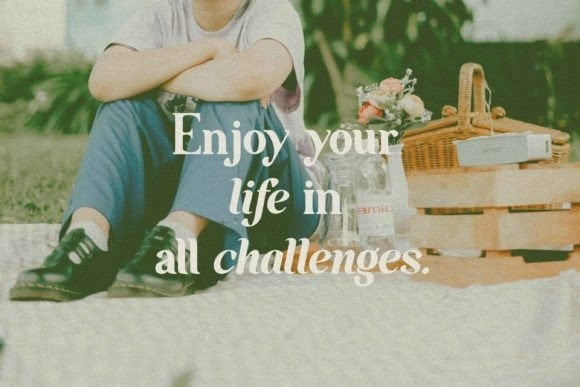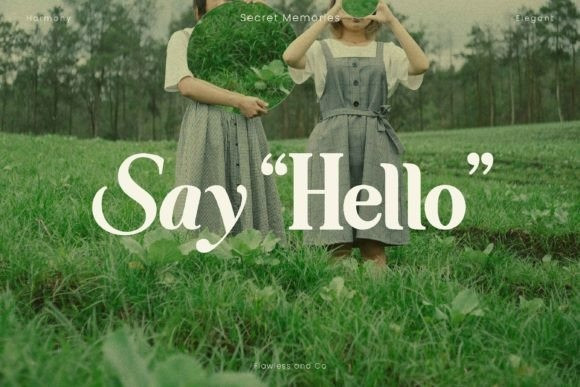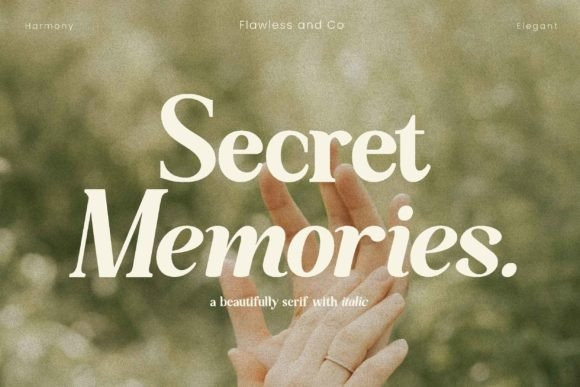
Secret Memories Font
Secret Memories Font is a classy and chic serif font. Elegant and sophisticated, this typeface will impress with its stylish features.